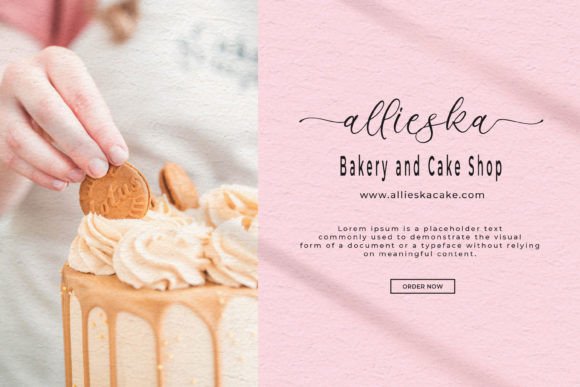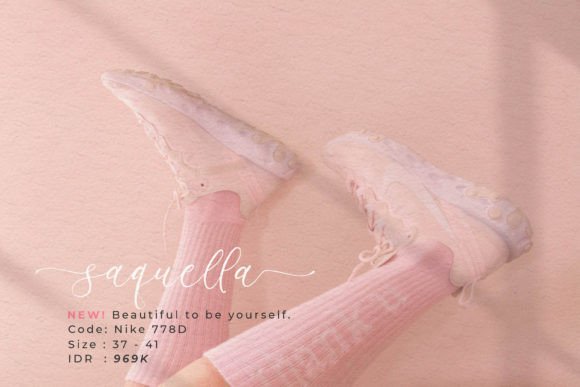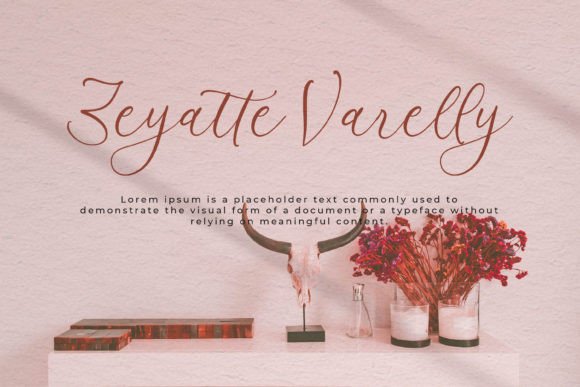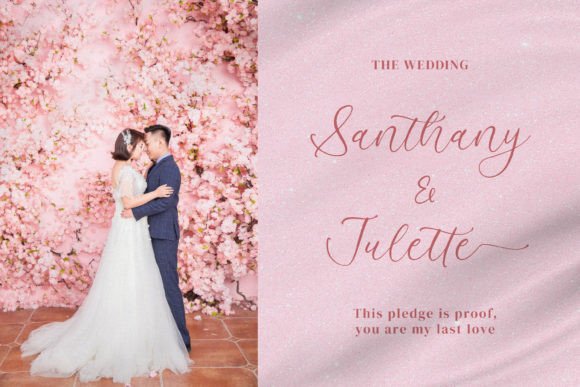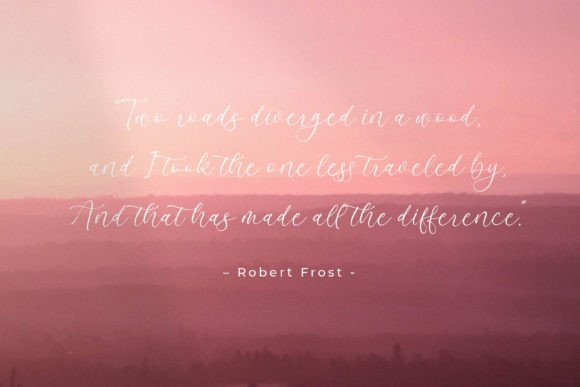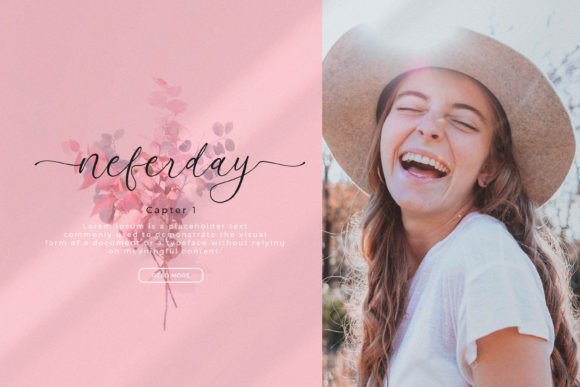
Introduction to Azelly Vellyne Font
Azelly Vellyne – Beautiful Scrpit Font, from Integritype Studio, is a premium Calligraphy Font, perfect for any project like: logos, branding projects, homewares designs, product packaging, mugs, quotes, posters, shopping bags, t-shirts, covers books, business cards, invitation cards, greeting cards, labels, photography, watermarks, special events and all your other luxury projects that require a premium taste.
Key Features of Azelly Vellyne Font
Why Choose Azelly Vellyne Font?
Azelly Vellyne Font offers exceptional quality and versatility, making it a valuable addition to your design toolkit. Whether you’re creating for personal projects or commercial use, Azelly Vellyne Font delivers professional results.